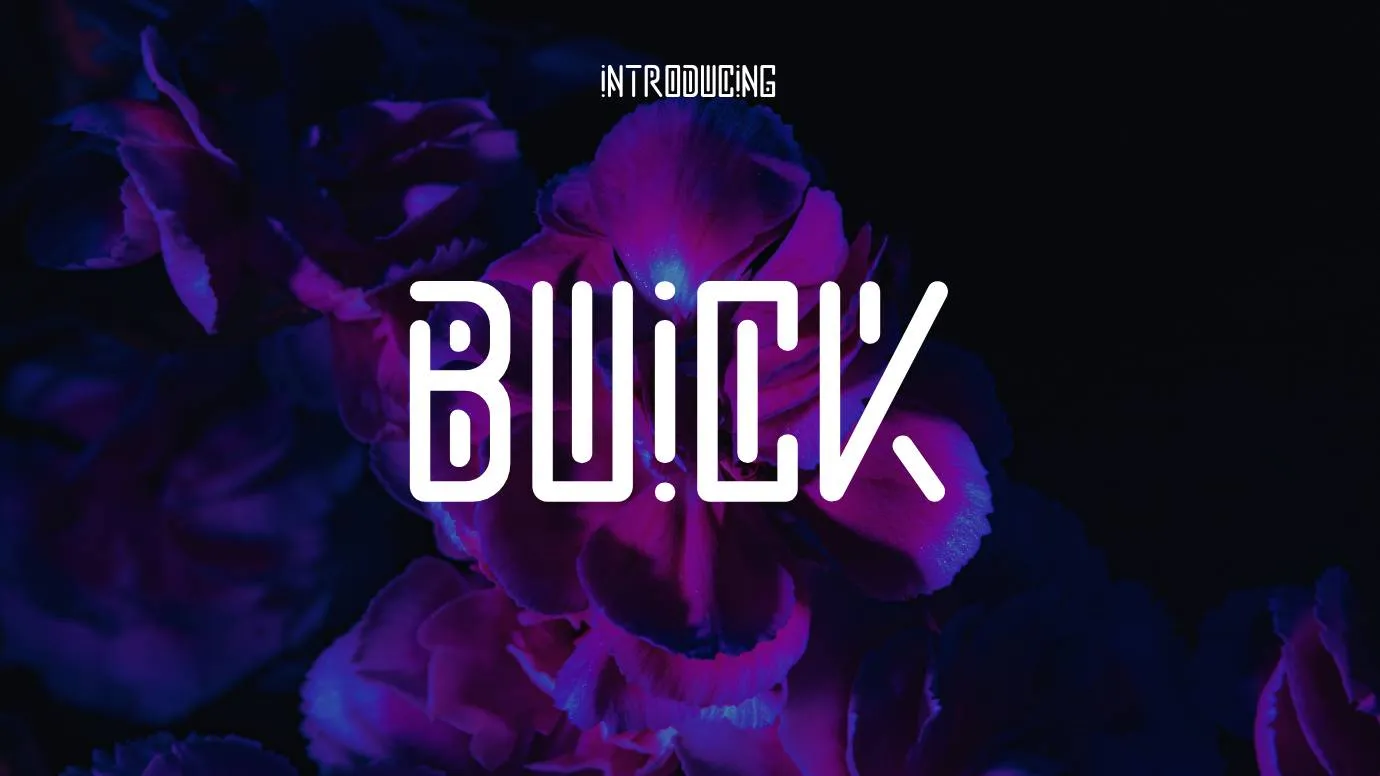
Buick Font Family
Buick Font Family is famous for its strong uppercase characters and lies in the classification of a fancy family of fonts. Faqih Fawaji is the main and original designer of this typeface.
Buick Font